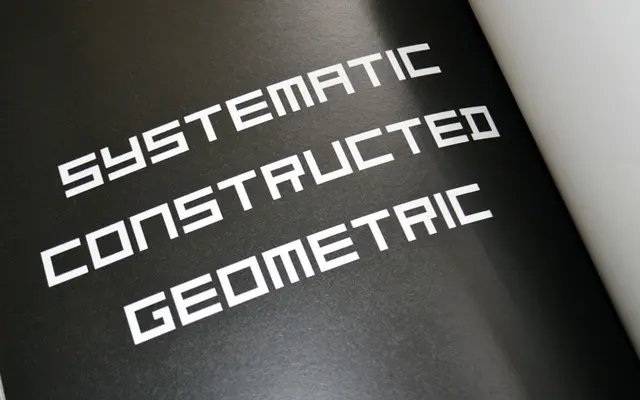
Architype Van Doesburg
The Foundry Types · Theo Van Doesburg (original), The Foundry Types (revival)
A digitisation of Theo Van Doesburg's 1919 geometric alphabet, reconstructed on its original 5x5 grid with the character set kept deliberately limited to honour his single-alphabet theory.
Part of The Foundry Types' Architype Konstrukt collection, this typeface recovers Van Doesburg's experimental inter-war lettering, itself a direct expression of De Stijl's commitment to strict rectangularity. The forms are built entirely on a 5x5 grid, and the restricted character set reflects Van Doesburg's original single-alphabet concept rather than any failure of the revival. Historical samples from 1919 and 1920 publications, including 'Klei' magazine and 'La Section d'Or', document the source material.
Derived from a 1919 geometric alphabet built on a strict 5x5 grid, with forms dictated by De Stijl rectangularity theory. The limited character set and avant-garde origins place it firmly in the display/experimental category.